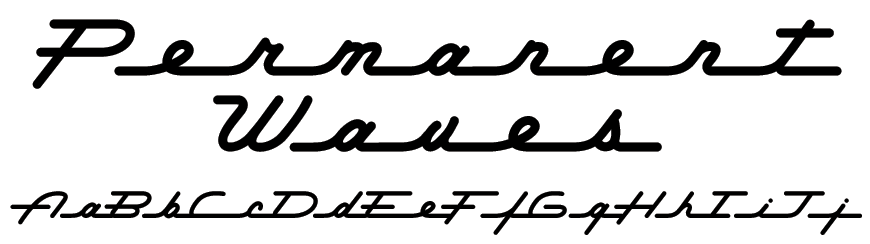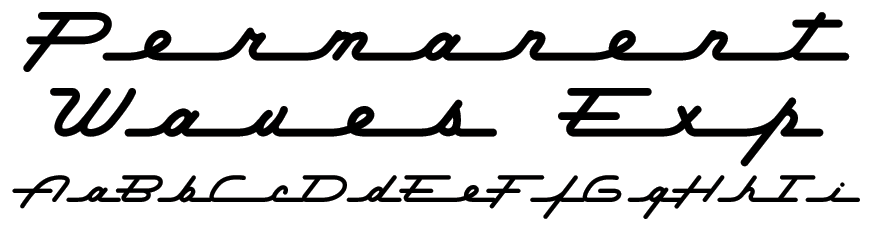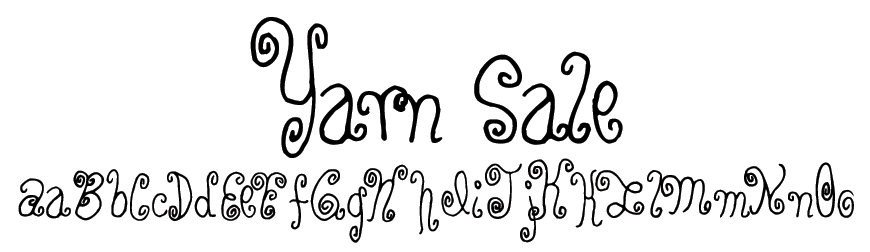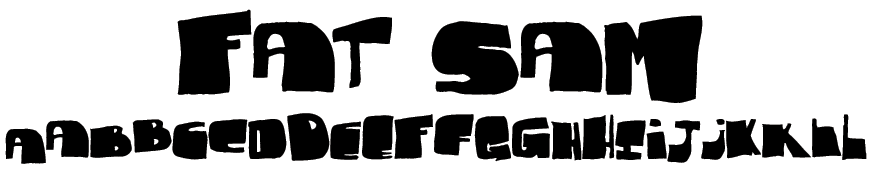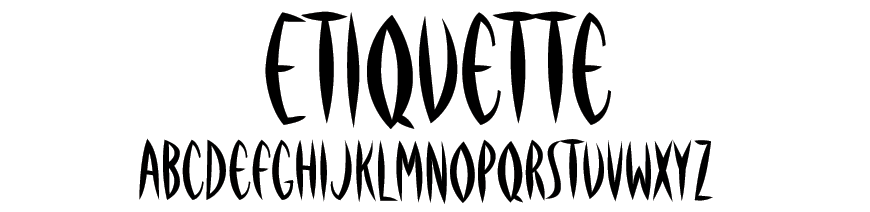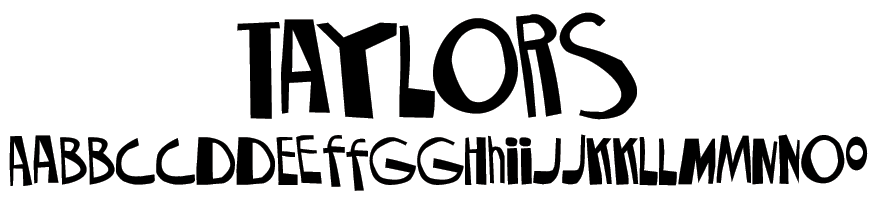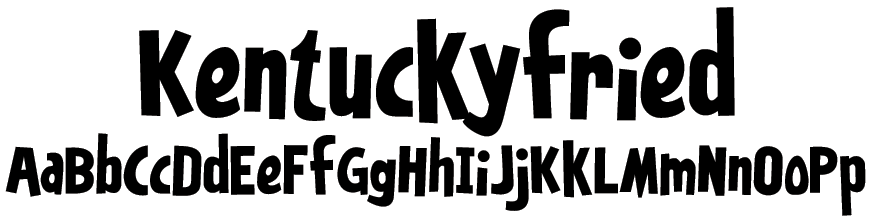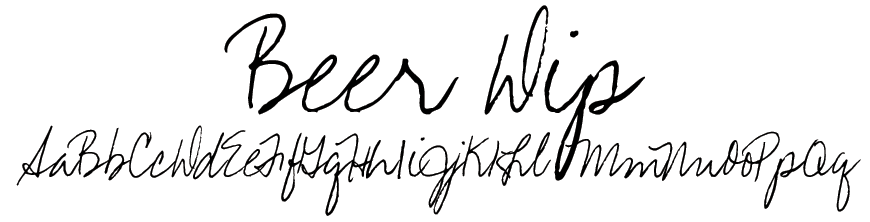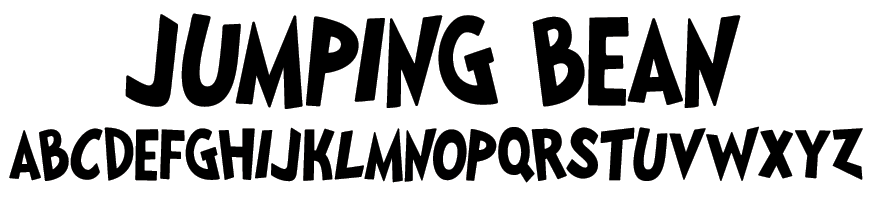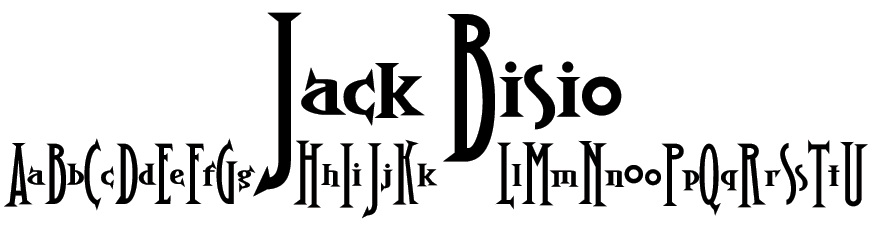
This is the Font Set that started it all! Take home a Doggie Bag Font Set complete with a wonderful assortment of fun display fonts, handwritten script styles and slick speedy connecting scripts!
Doggie Bag Font Set
This is the Font Set that started it all! Take home a Doggie Bag Font Set complete with a wonderful assortment of fun display fonts, handwritten script styles and slick speedy connecting scripts!